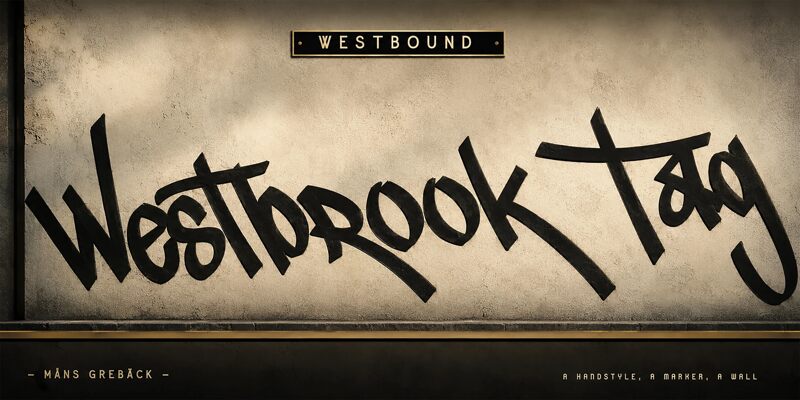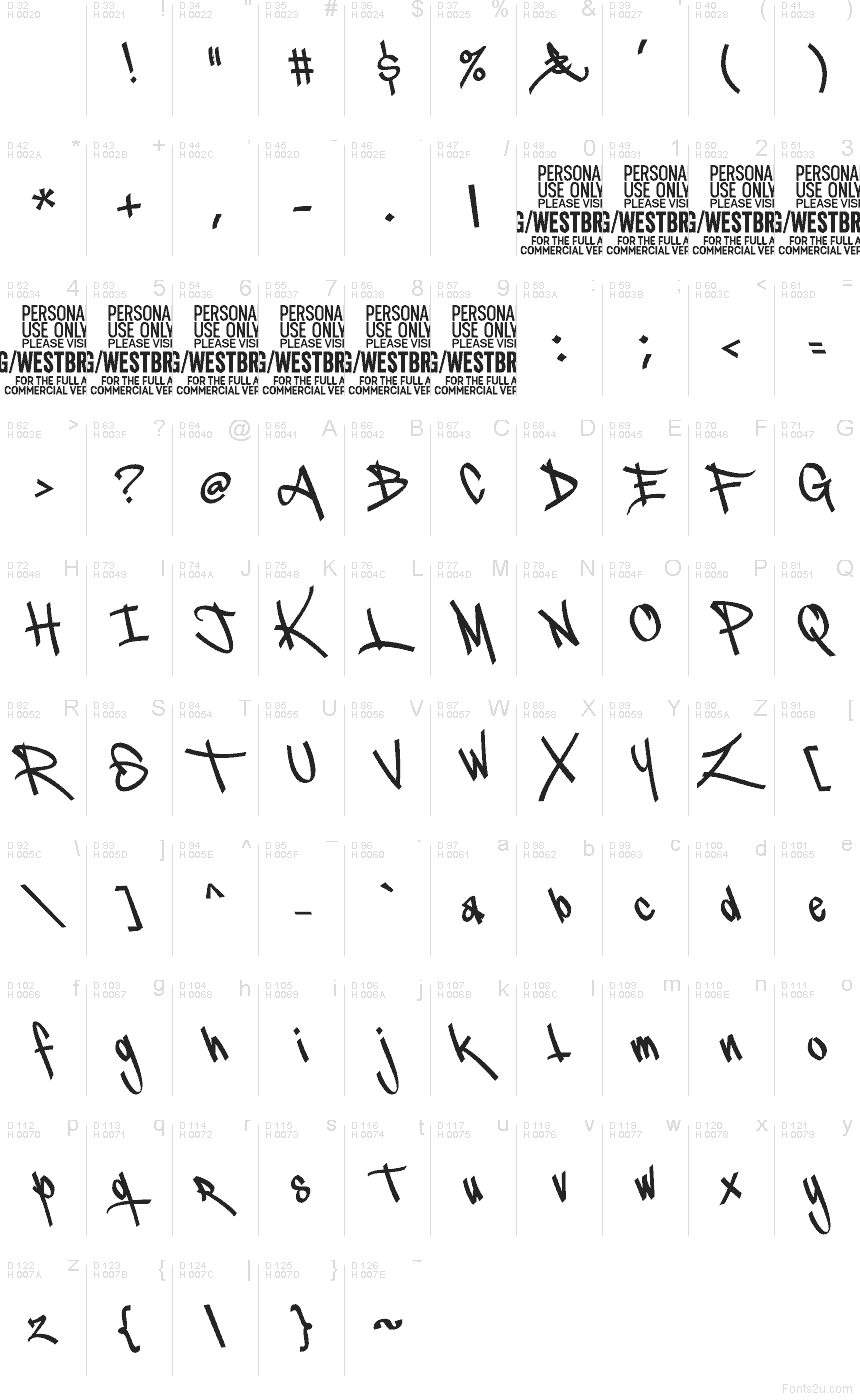
Westbrook Tag PERSONAL USE Regular
Westbrook Tag from Mans Greback is a free graffiti script with sharply angled strokes, sudden changes in width, and long bars that slash through neighboring letters. Its tangled forms have the restless pace of a quick marker tag.
Street culture and underground music provide the clearest context for this lettering, especially on gig posters, skate apparel, event graphics, and game artwork, where the aggressive crossings echo spray-painted signatures and hand-drawn artwork. The font is most convincing when the lettering itself becomes the central tag-like image rather than a neutral caption.